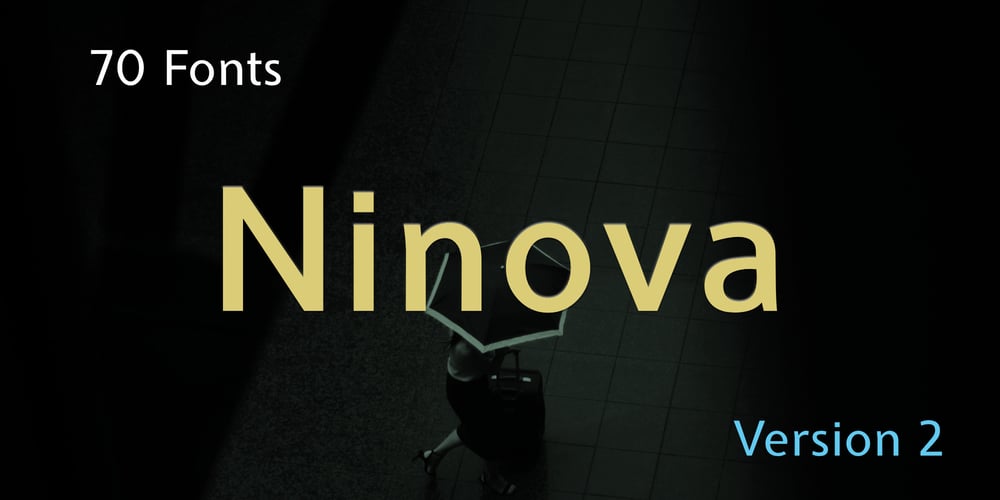
Ninova Font Family was designed by İsmail AYDIN and published by Fontuma. Ninova contains 70 styles and family package options. Ninova TypefaceNinova is a historical city that was the capital of the Assyrian Kingdom, whose ruins are today within the borders of Iraq. It is also known as the city where the prophet Jonah was sent. Ninova font family consists of fonts with aesthetic forms that appeal to human taste at the maximum level. Ninova font will more than meet the needs and expectations in terms of the glyphs it contains, the weights it has and the number of styles it has. In terms of weights, Ninova font has Extralight, Light, Regular, Medium, Semibold, Bold and Extrabold styles. All these weights also support Condensed, Narrow, Normal, Wide and Expanded styles from narrow to wide. Thus, the Ninova typeface represents a family of seventy fonts. Ninova font, with its geometric feature, has received many innovations and improvements with the second version. The design of most of the glyphs in the font, was renewed and thus the font gained a more stable and aesthetic structure. In addition, with the second version, the font gained new opentype features and pre-existing opentype features were improved. Opentype features added to the Ninova font are as follows:● Slashed zero● Stylistic alternatives for the letters a, g, W and w● Old style● Proportional● Tabular● Numerator● Denominator● Fraction/Alternate fraction● Ordinal (a-z)● Small capital● Small capital from capital● Petite capital from capitalNinova font contains fonts that offer multi-purpose usage opportunities, especially in printed products, media, digital environments and in every field of writing. As Fontuma Foundry, we actually designed not this user-friendly font, but the happiness and comfort you will feel when pressing the keyboard keys.